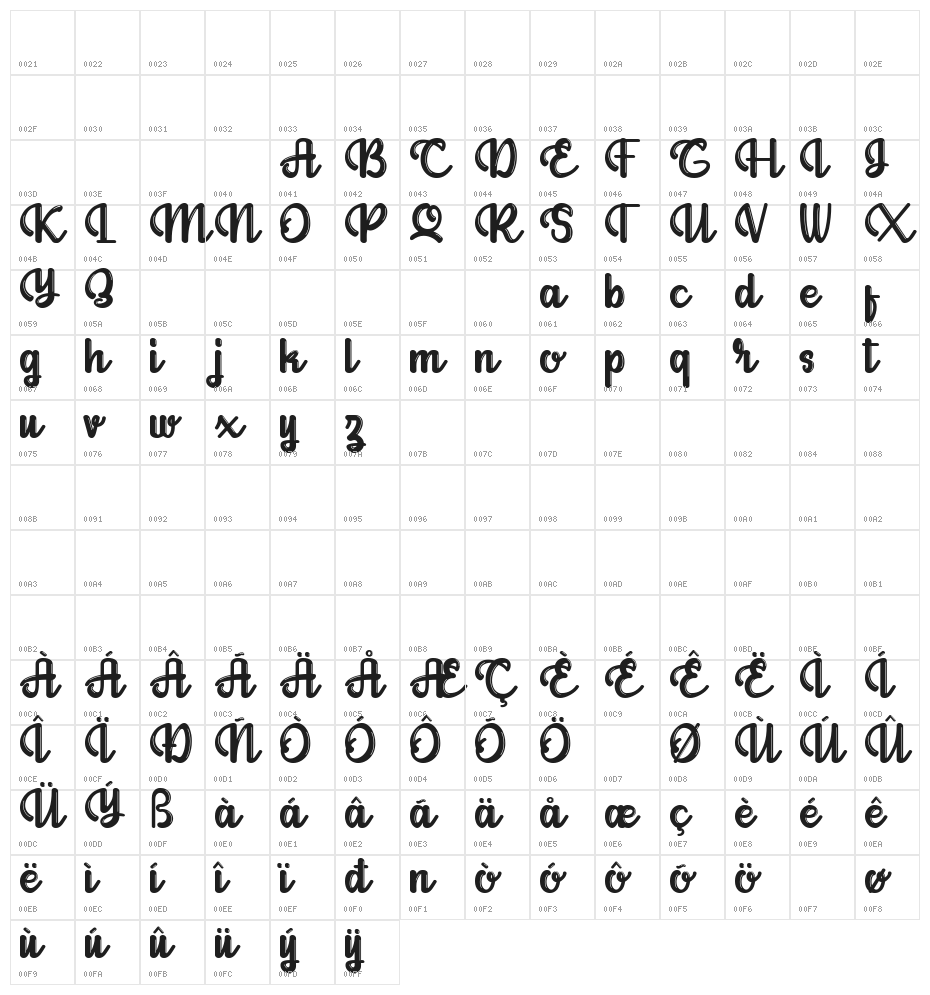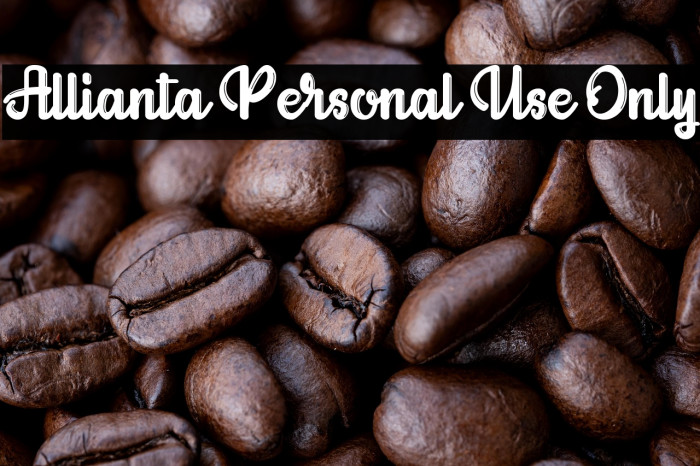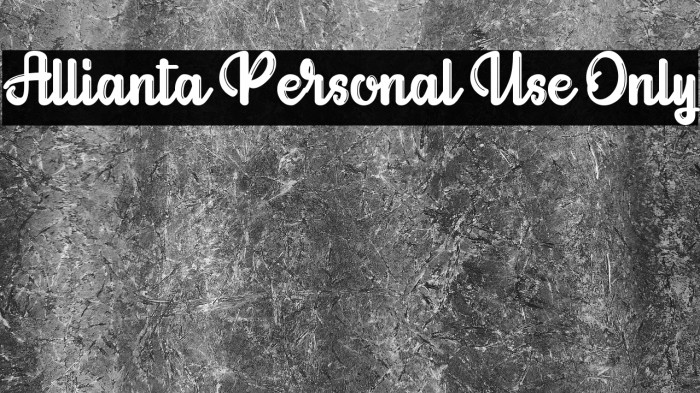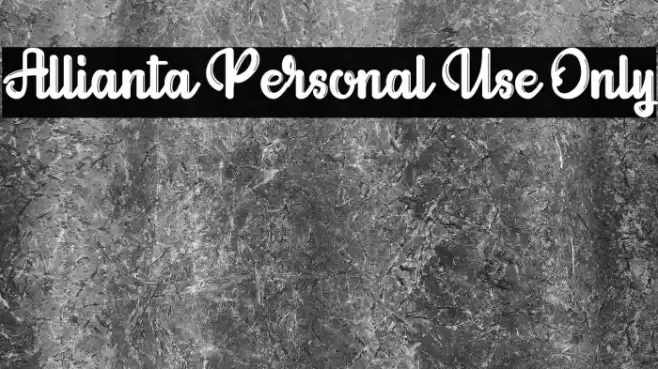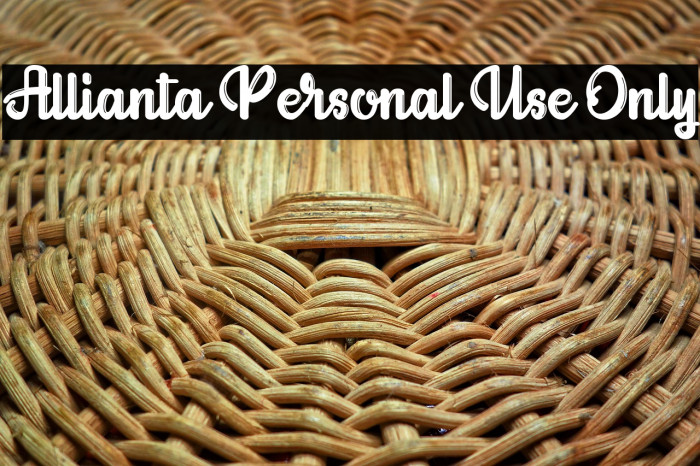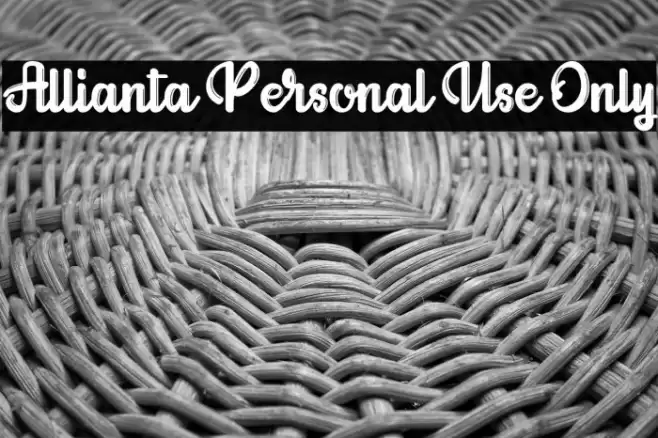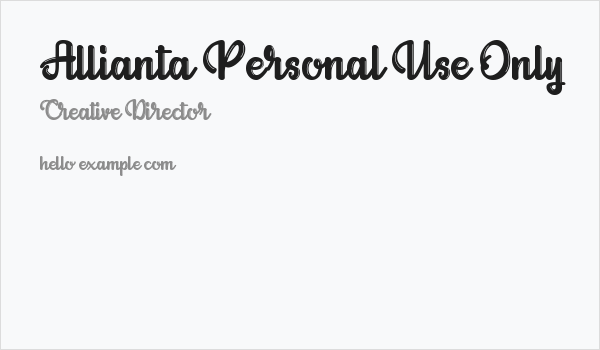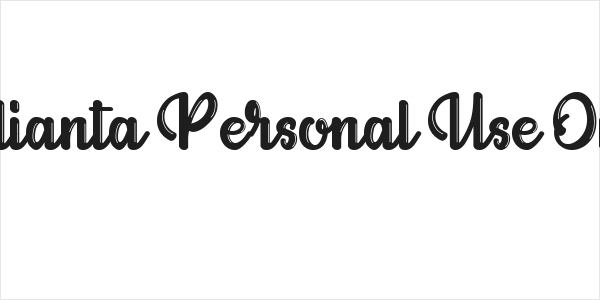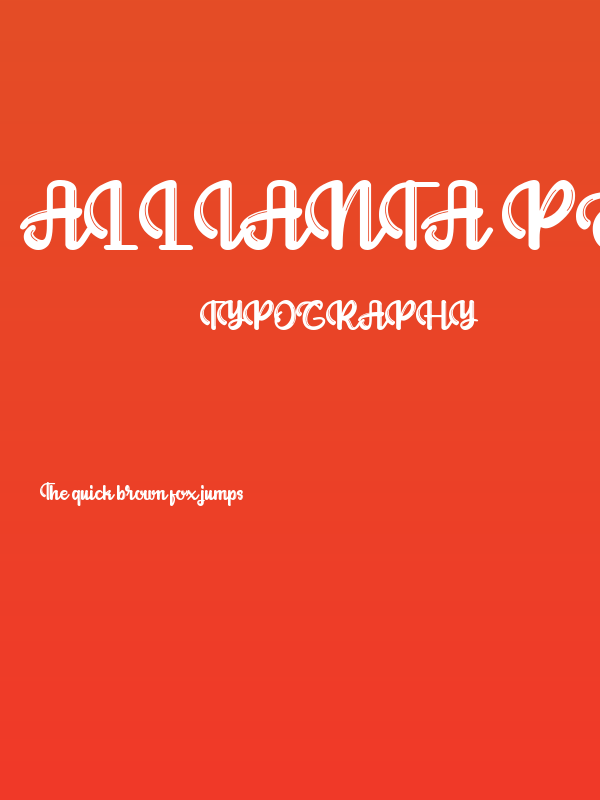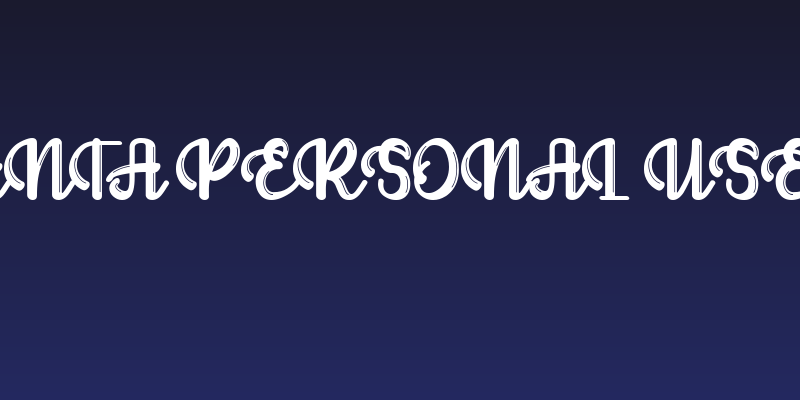
Allianta Personal Use Only Font
Allianta Personal Use Only Description
This font features a bold, flowing script style with a modern twist. The characters are interconnected, creating a seamless and elegant appearance. The uppercase letters are distinct with a slight slant, while the lowercase letters maintain a consistent baseline, enhancing readability. The font's thick strokes and smooth curves give it a dynamic and lively feel, making it suitable for creative and expressive designs. Its unique style is perfect for making a statement, with each letter exuding personality and charm.
| Proposed Projects | Ideal for branding, invitations, greeting cards, and creative posters. |